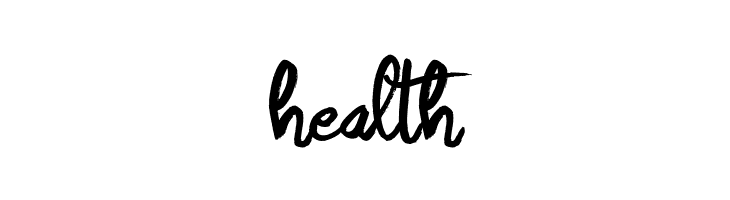
A bold, hand-drawn font with an energetic and playful style.
A playful, bold handwritten font with a whimsical style.
A modern, geometric font with rounded edges and a condensed style.
A dynamic, handwritten-style font with expressive, slanted characters.
A playful, hand-drawn font with a whimsical and friendly style.
A dripping, eerie font perfect for horror themes.
A playful, cursive-like font with dynamic and expressive letterforms.
A bold, ornate blackletter font with a gothic, medieval style.
An elegant script font with flowing, cursive letterforms and decorative swashes.
A bold, elegant cursive script font with flowing, connected letters.
设计师偏爱 Modavina, Moms Story, Grage, The Horsetto and Fictional Friend DEMO Regular,因为其造型干净、适用范围广—— 从品牌识别到落地页、海报都能胜任。